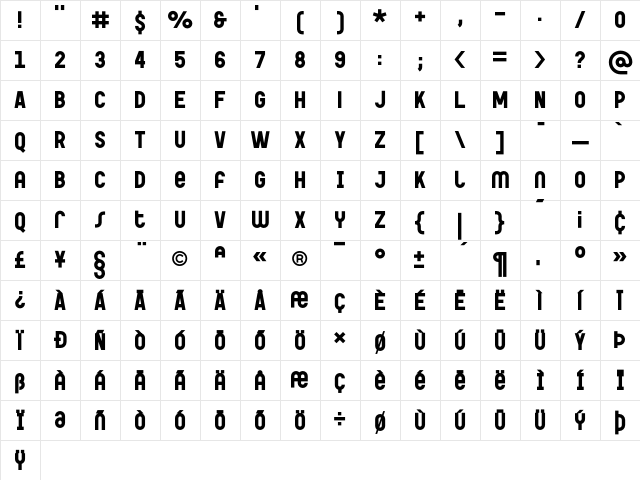
Garaje 53 Unicase Black
Foundry: Thomas Huot-Marchand / 256TM
Designer: Thomas Huot-Marchand
Design Context for Garaje 53 Unicase
Garaje 53 Unicase is a composed and adaptable typeface that performs quietly and consistently across a wide range of design contexts.
Pro Tip: Use Garaje 53 Unicase in both headline and body roles to test its range before committing to a single application.